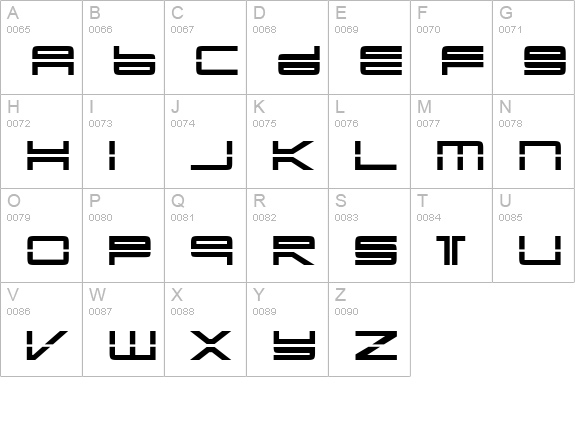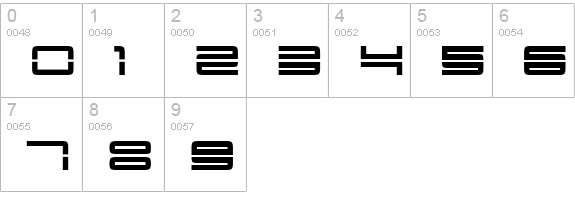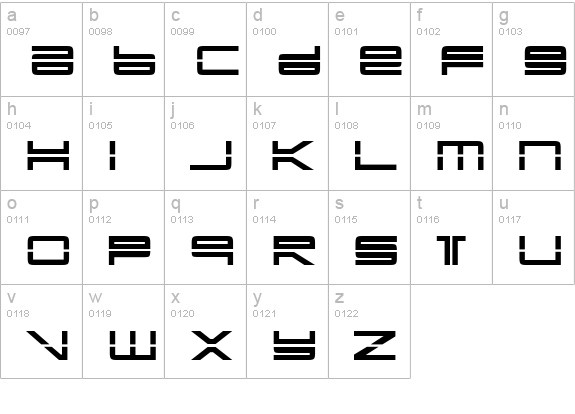
YonderRecoil Font Details
YonderRecoil is a captivating and versatile font that exudes a sense of modernity and elegance. Its unique design features sleek lines and a subtle hint of playfulness, making it perfect for a wide range of creative projects. Whether you're designing a logo, crafting a brand identity, or creating eye-catching marketing materials, YonderRecoil is sure to make a bold statement. What sets YonderRecoil apart is not only its striking aesthetic appeal but also its versatility. This font seamlessly transitions from sleek and sophisticated to fun and whimsical, making it a valuable addition to any designer's toolkit. With a wide range of weights and styles available, you'll have the freedom to experiment and bring your vision to life with ease. The best part? YonderRecoil is completely free to download at FontsMarket.com. Simply visit the website, grab your copy, and unleash your creativity with this stunning font. Don't miss out on the opportunity to elevate your designs with the modern charm of YonderRecoil.